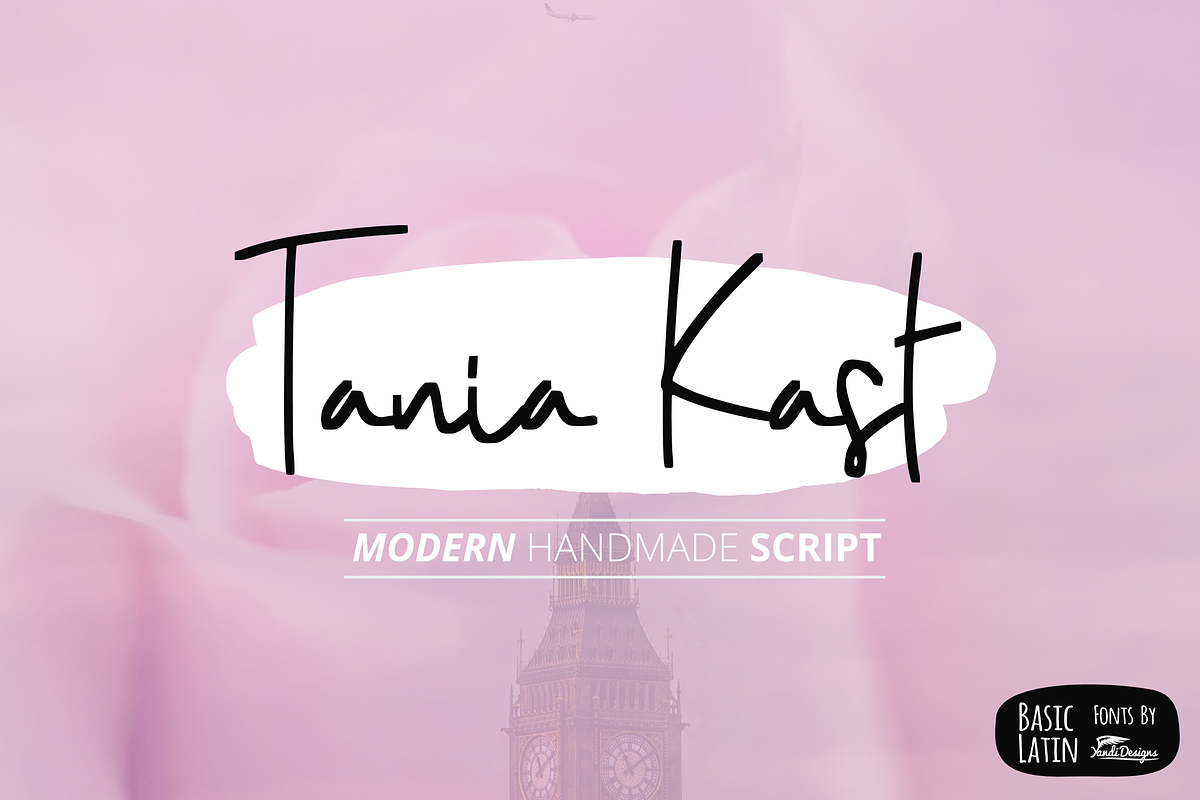
Tania Kast Modern Script Font Free Download is a chic and stylish handwritten font that blends contemporary elegance with a personal touch. Its fluid strokes and sophisticated design make it perfect for high-end branding, wedding invitations, fashion campaigns, logos, and lifestyle blogs that want to exude class and charm.
This modern script typeface is designed to flow naturally across your layout, giving your text a graceful and luxurious look. Whether you're crafting a boutique logo or curating social media content, Tania Kast brings a premium vibe that feels both artistic and authentic.